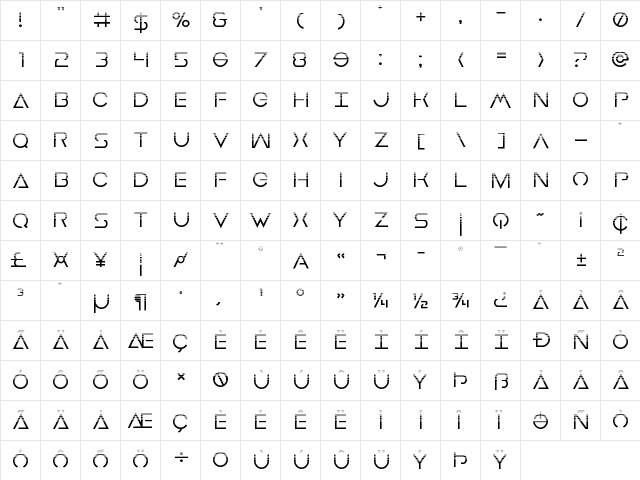
Earth Orbiter Halftone Regular
Design Context for Earth Orbiter Halftone Typeface
Earth Orbiter Halftone offers clean, dependable letterforms without strong stylistic allegiance, making it a practical choice for designers who need flexibility.
Pro Tip: Use Earth Orbiter Halftone in both headline and body roles to test its range before committing to a single application.